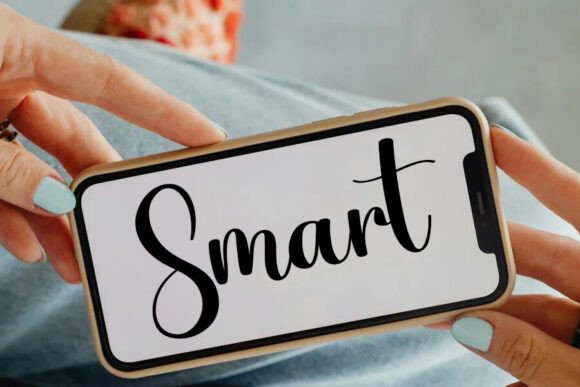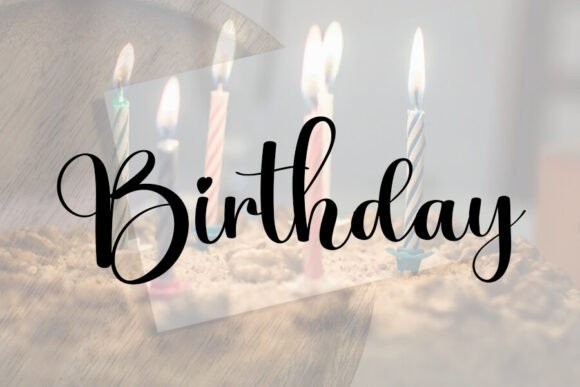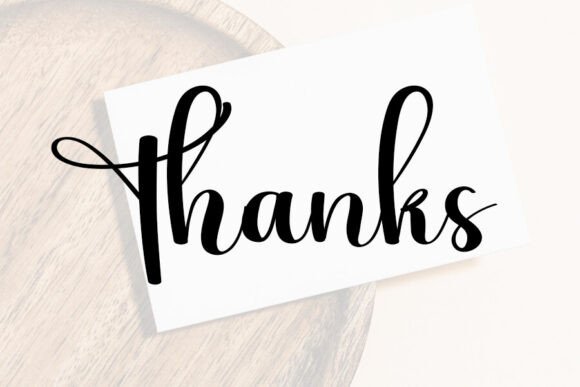
Introducing December Font: Elevate Your Designs with a Fresh and Visually Striking Typeface
In the world of design, fonts play a crucial role in conveying messages, evoking emotions, and creating a lasting impression. For designers and crafters seeking a font that can add a touch of elegance and sophistication to their projects, look no further than December Font. This stunning typeface is designed to breathe life into your designs, making it the perfect choice for a wide range of applications, from YouTube banners and logo mockups to wedding invitations, ID cards, flyers, and crafts.
What Makes December Font Stand Out?
December Font is a ravishingly fresh and visually striking typeface that boasts a unique blend of modernity and elegance. Its aesthetically pleasing design effortlessly captures the attention of viewers, making it an excellent choice for designers and crafters looking to create stunning visual content. Here are some key features that make December Font a standout:
- Unique and Modern Design: December Font features a distinctive and contemporary design that sets it apart from other fonts. Its clean lines, elegant curves, and precise craftsmanship make it perfect for creating visually appealing designs.
- Versatility: This font is incredibly versatile and can be used for a wide range of applications, including YouTube banners, logo mockups, wedding invitations, ID cards, flyers, and crafts.
- Ease of Use: December Font is easy to use and can be effortlessly integrated into your design projects, saving you time and effort.
December Font is an excellent choice for designers and crafters working on various projects. Here are some of the ways you can use this stunning font:
YouTube Banners
Create stunning YouTube banners that grab the attention of your audience with December Font. Its modern design and elegant curves make it perfect for showcasing your brand’s personality and style.
Logo Mockups
Take your logo designs to the next level with December Font. Its unique and visually striking design makes it an excellent choice for creating cutting-edge logo mockups that leave a lasting impression.
Wedding Invitations
Make your wedding invitations truly special with December Font. Its elegant design and precise craftsmanship make it perfect for creating enchanting and memorable invitations that set the tone for your special day.
ID Cards
Create distinctive and professional ID cards with December Font. Its clean lines and modern design make it an excellent choice for creating ID cards that are both functional and visually appealing.
Flyers
Design stunning flyers that capture the attention of your audience with December Font. Its unique and modern design makes it perfect for creating stellar flyers that promote your brand, product, or service.
Crafts
Take your crafts to the next level with December Font. Its elegant design and precise craftsmanship make it perfect for creating captivating and unique crafts that showcase your creativity and skill.
Why Choose December Font?
With so many fonts available, why choose December Font? Here are some compelling reasons to consider:
- High-Quality Design: December Font is designed to the highest standards, ensuring that your designs look professional and visually appealing.
- Time-Saving: With December Font, you can save time and effort, as its ease of use and versatility make it easy to integrate into your design projects.
- Unique and Memorable: December Font is designed to create a lasting impression, making it perfect for designers and crafters looking to create unique and memorable designs.
In conclusion, December Font is a stunning and versatile typeface that is perfect for designers and crafters looking to elevate their designs. Its unique and modern design, ease of use, and high-quality craftsmanship make it an excellent choice for a wide range of applications. Whether you’re creating YouTube banners, logo mockups, wedding invitations, ID cards, flyers, or crafts, December Font is sure to impress.